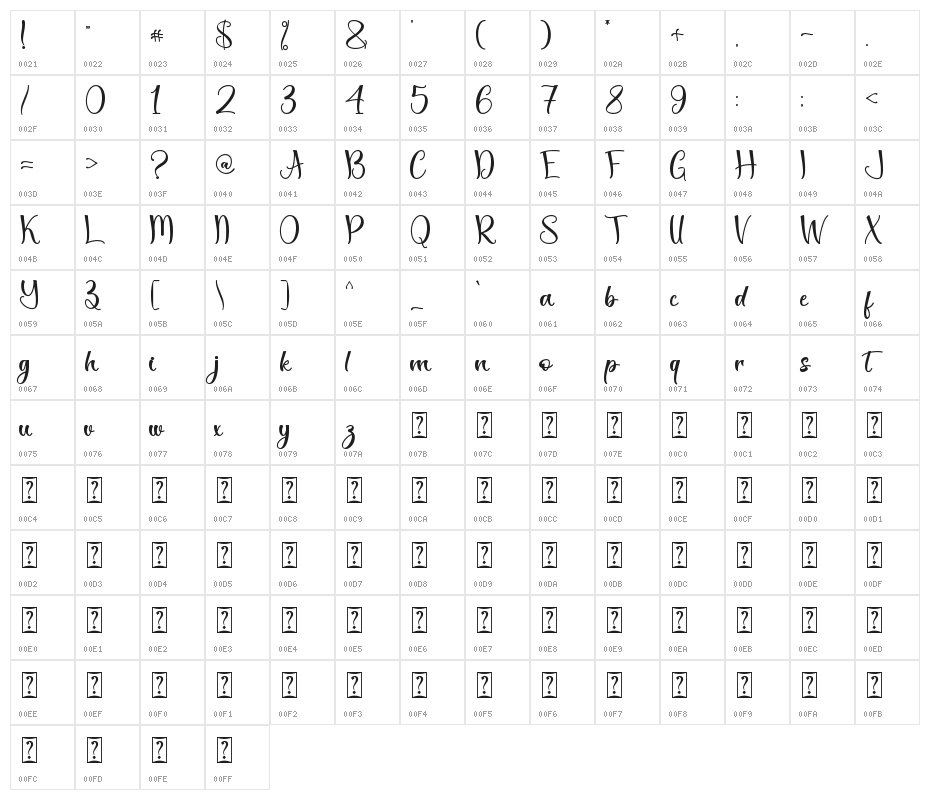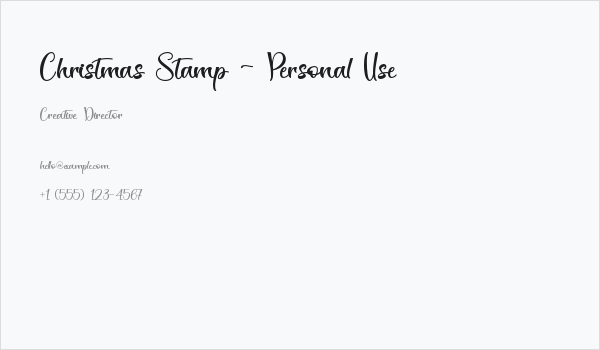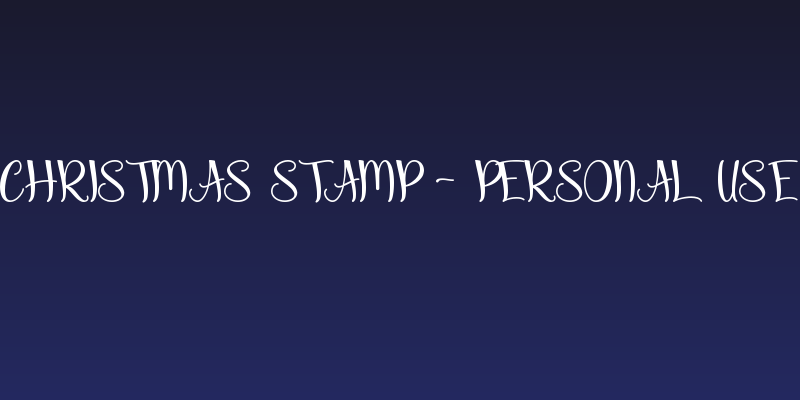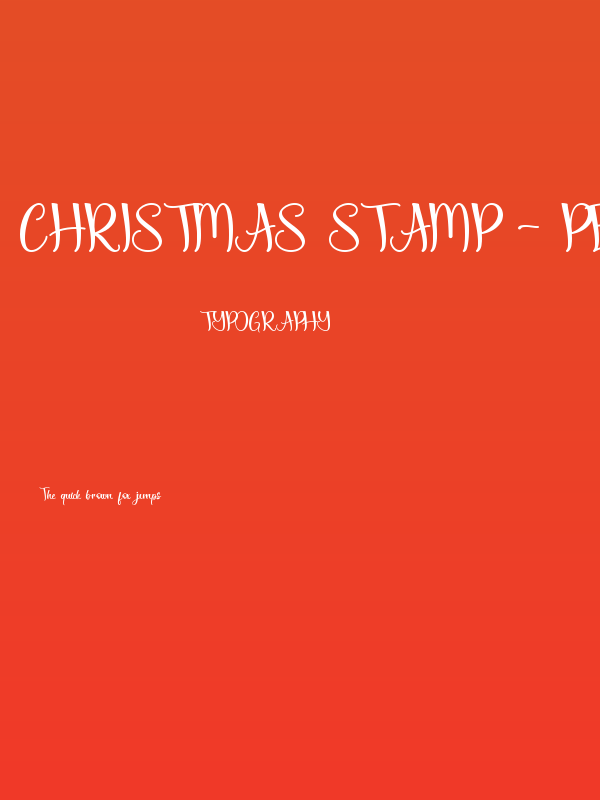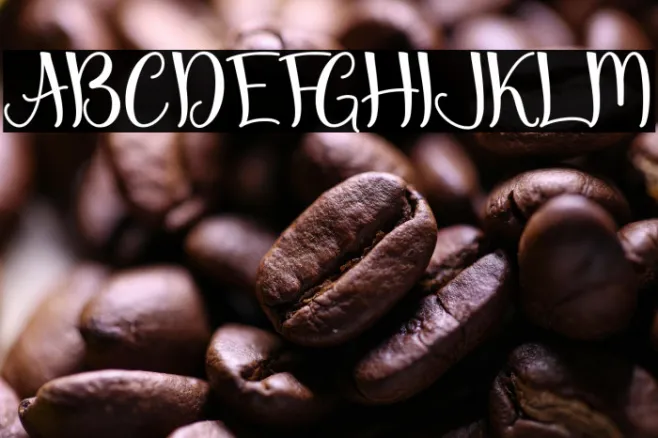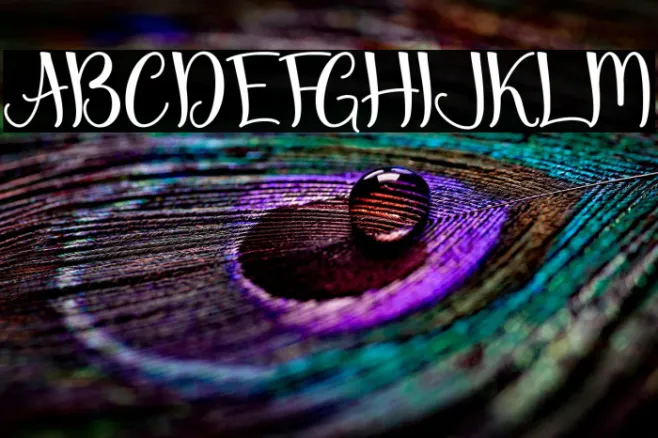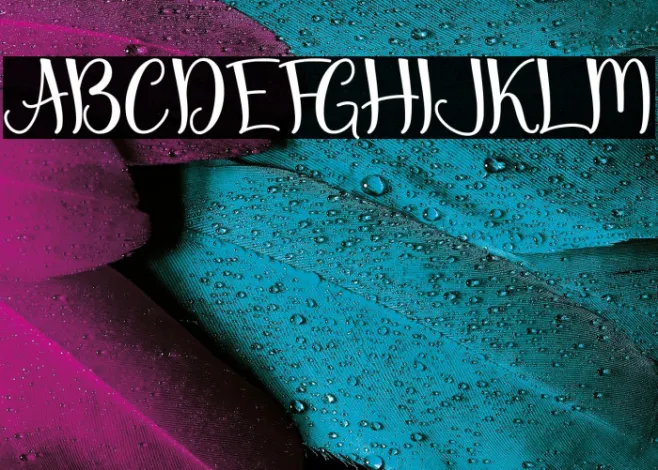
Christmas Stamp - Personal Use Font
Christmas Stamp - Personal Use Description
This font features a playful and whimsical script style, characterized by its flowing and curvaceous letterforms. The uppercase letters are bold and expressive, with exaggerated loops and swirls that give a sense of movement and energy. The lowercase letters maintain a consistent style, with smooth curves and a slightly informal feel. Numbers and special characters are integrated seamlessly, maintaining the overall playful aesthetic. The font's unique style makes it ideal for creative and festive projects, adding a touch of personality and charm.